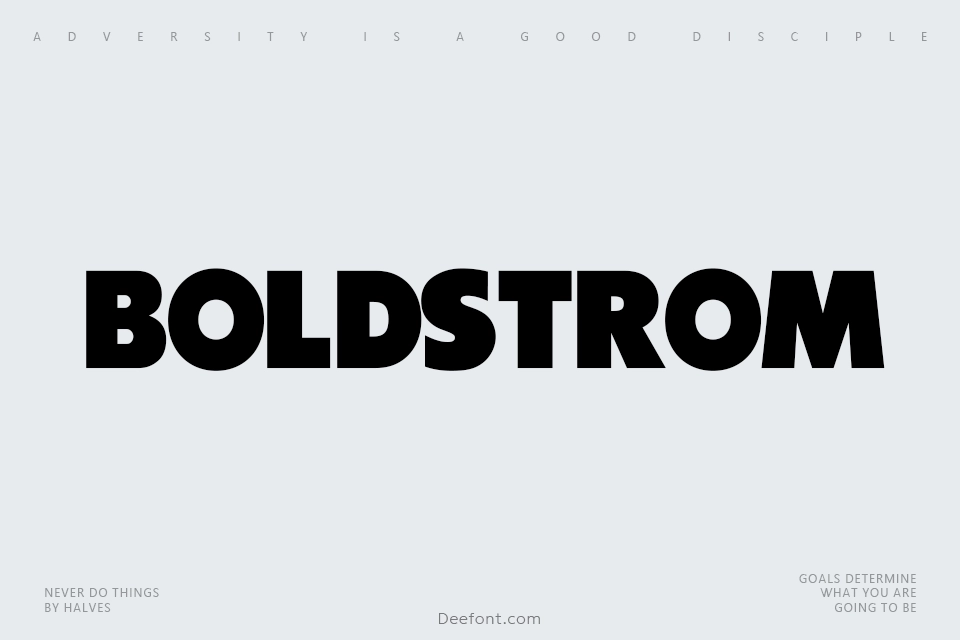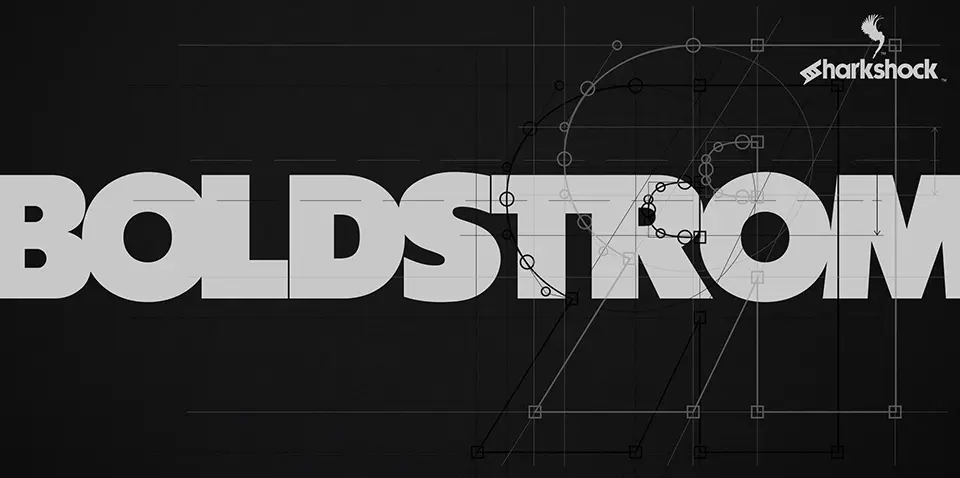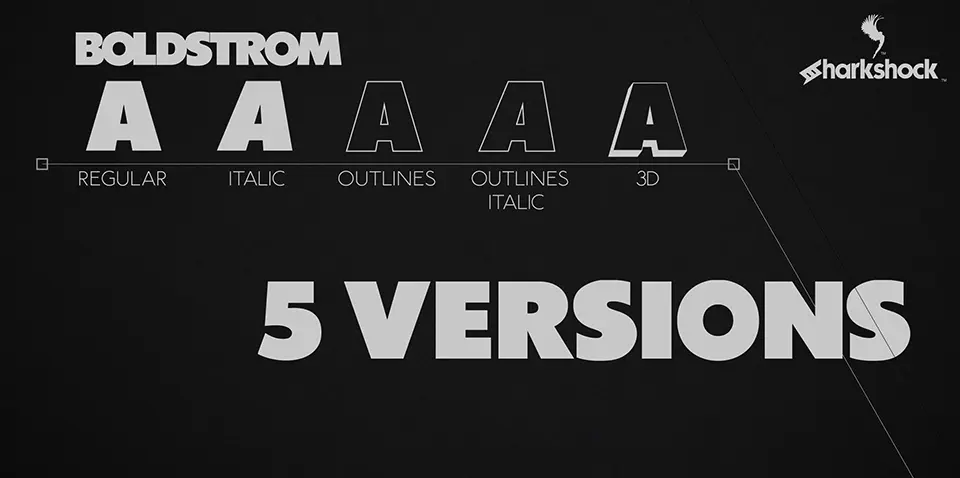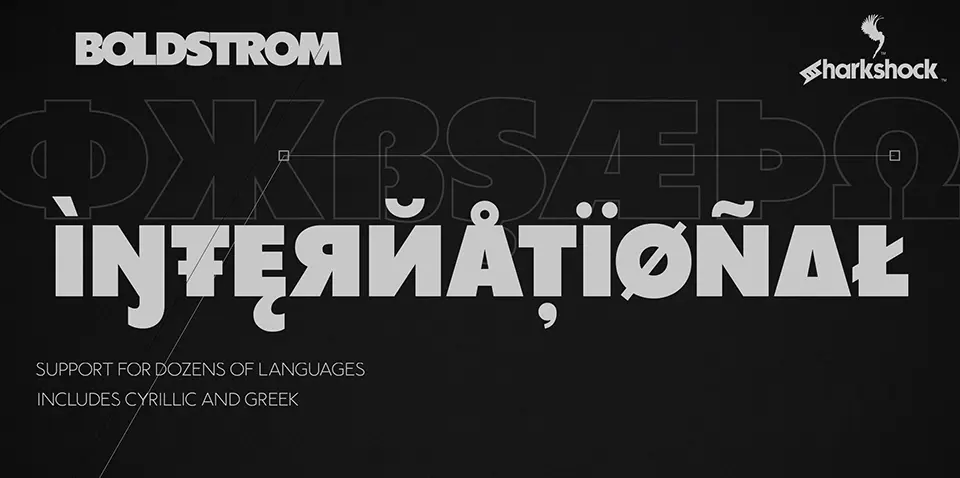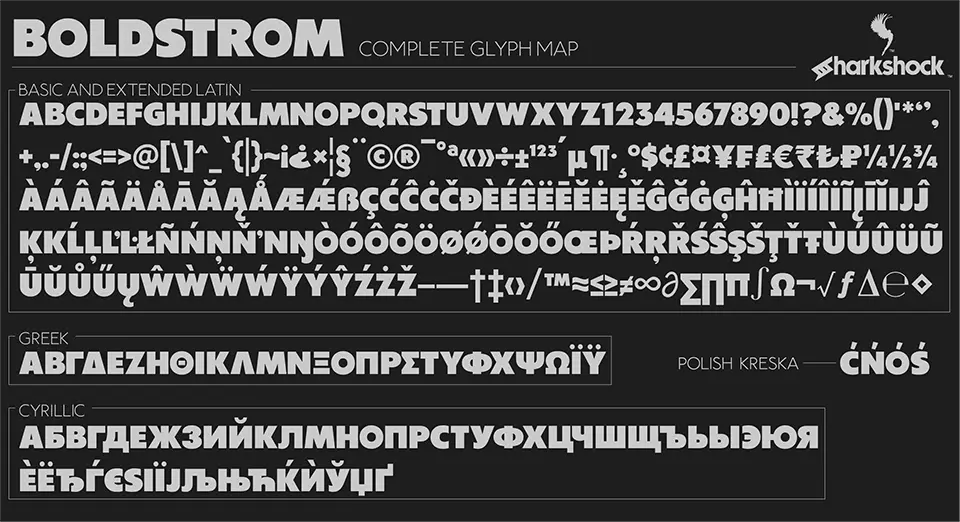
Boldstrom Font
Boldstrom is a bold, all-caps display font featuring heavy-handed characters with strong line weight and minimal contrast. This powerful sans serif typeface is defined by broad stems and tight curves, designed to command attention in large format print, titling, posters, and logos. With extensive character support including Basic Latin, extended Latin, diacritics, Cyrillic, and Greek, Boldstrom delivers versatile, impactful typography for creative projects demanding visual presence.